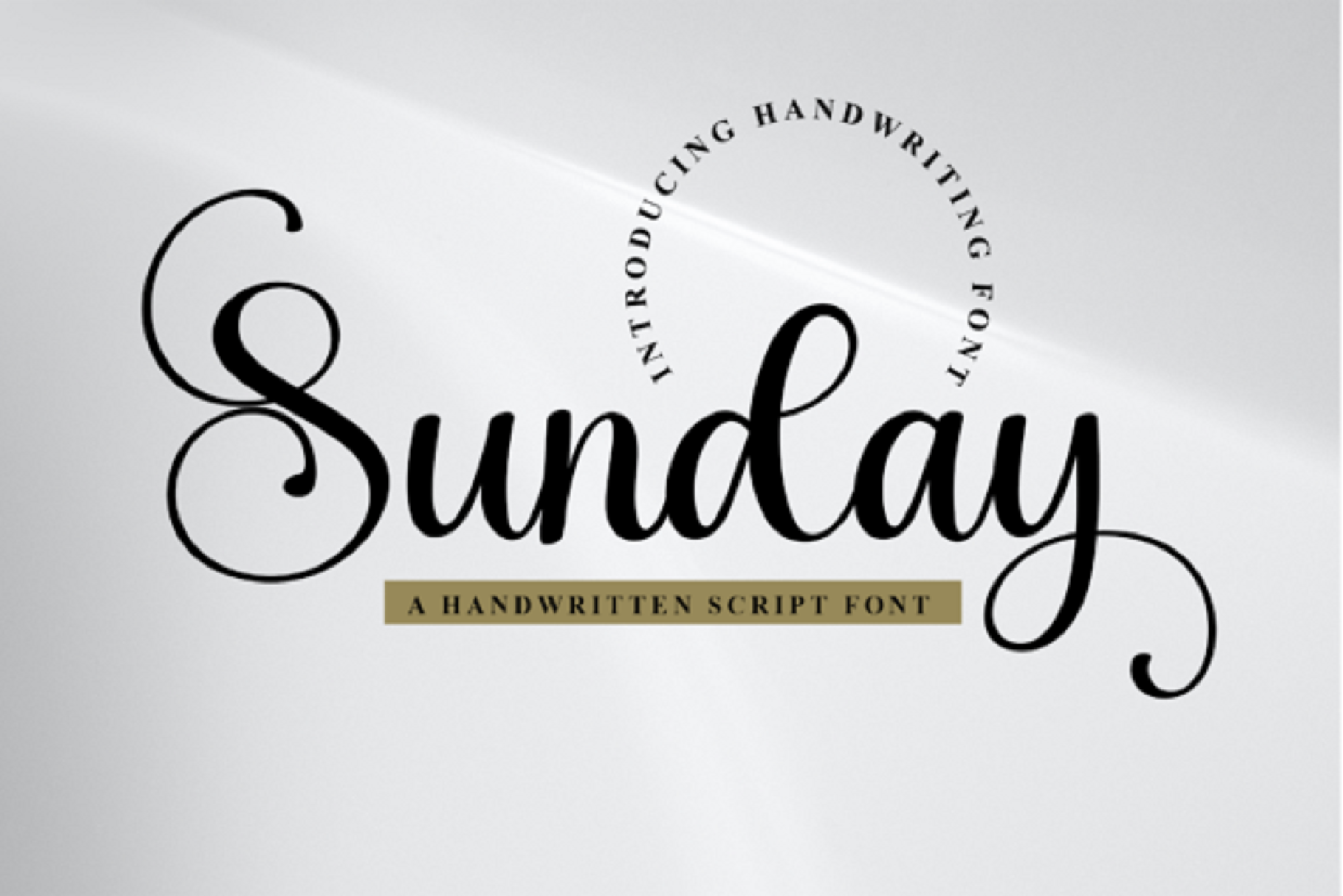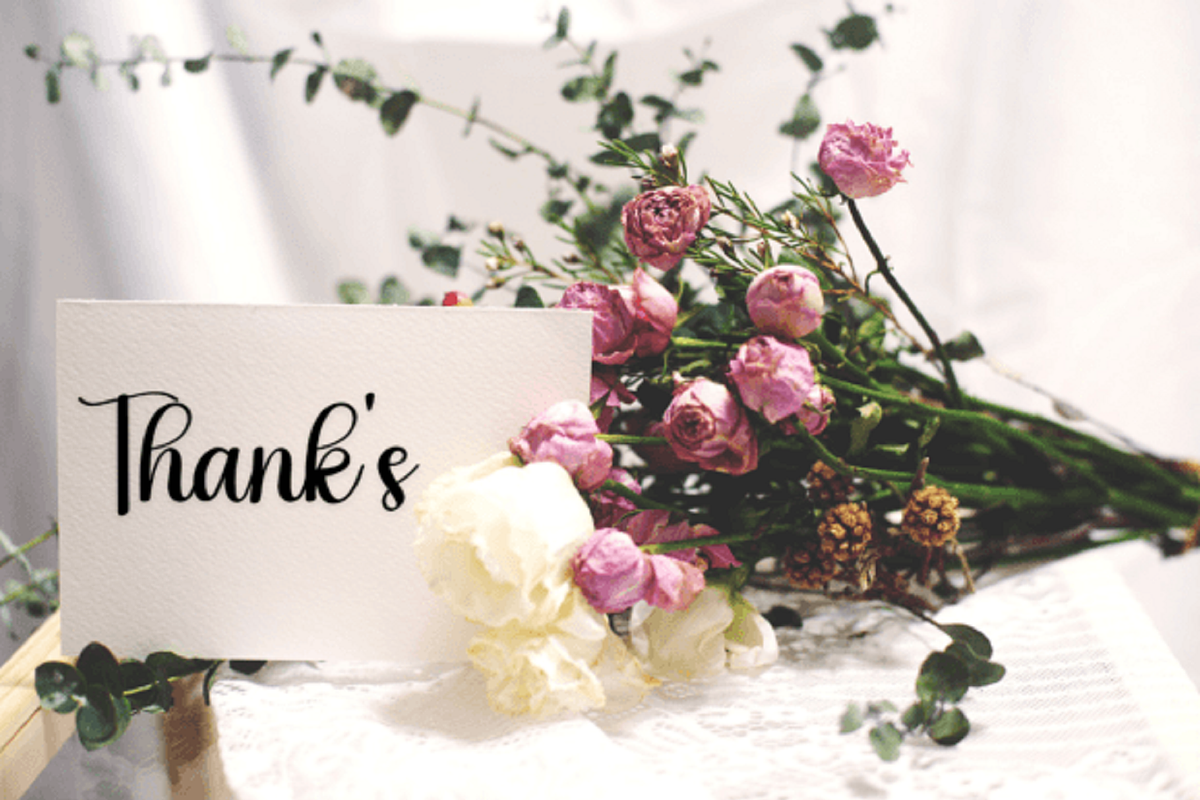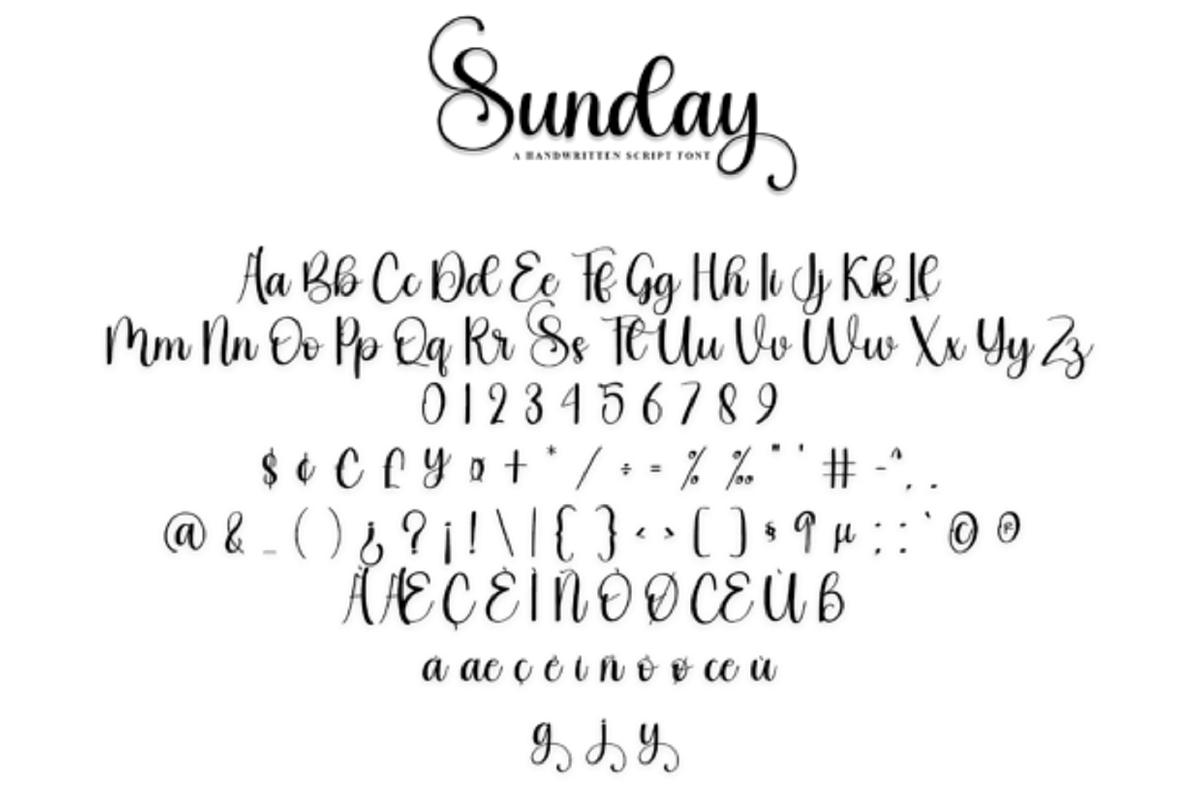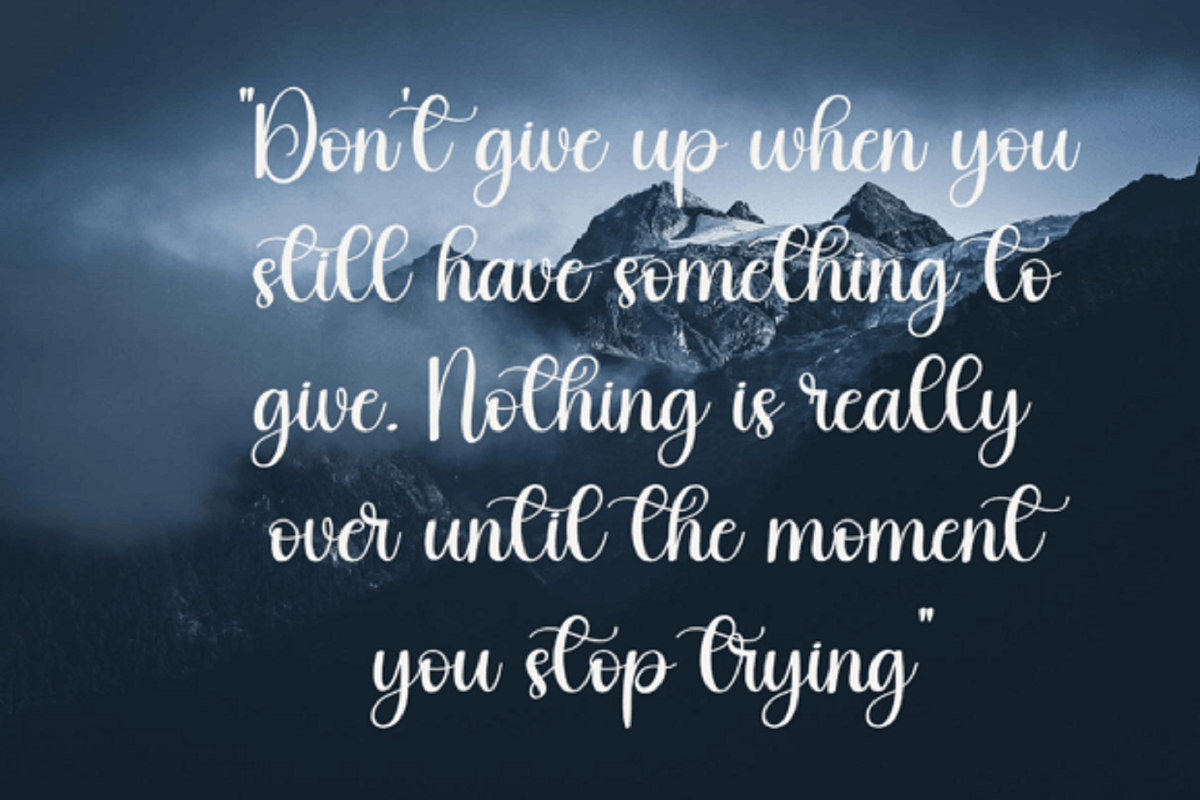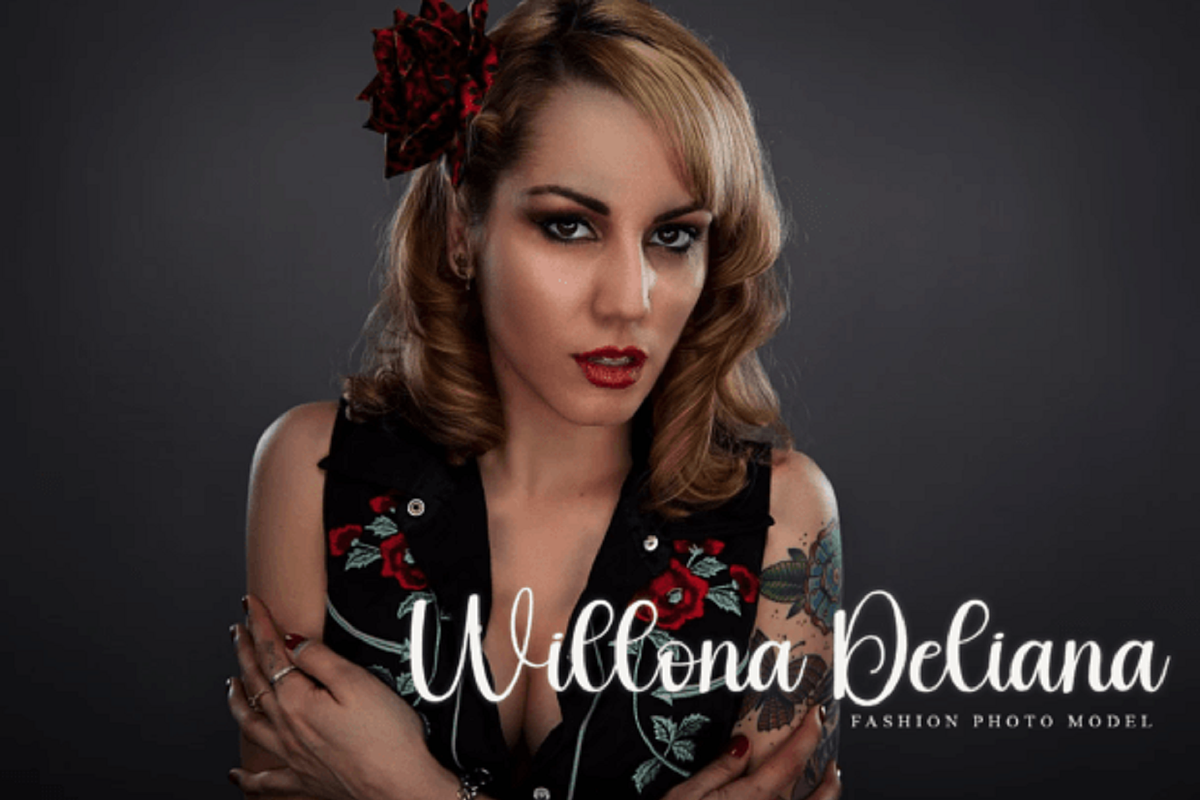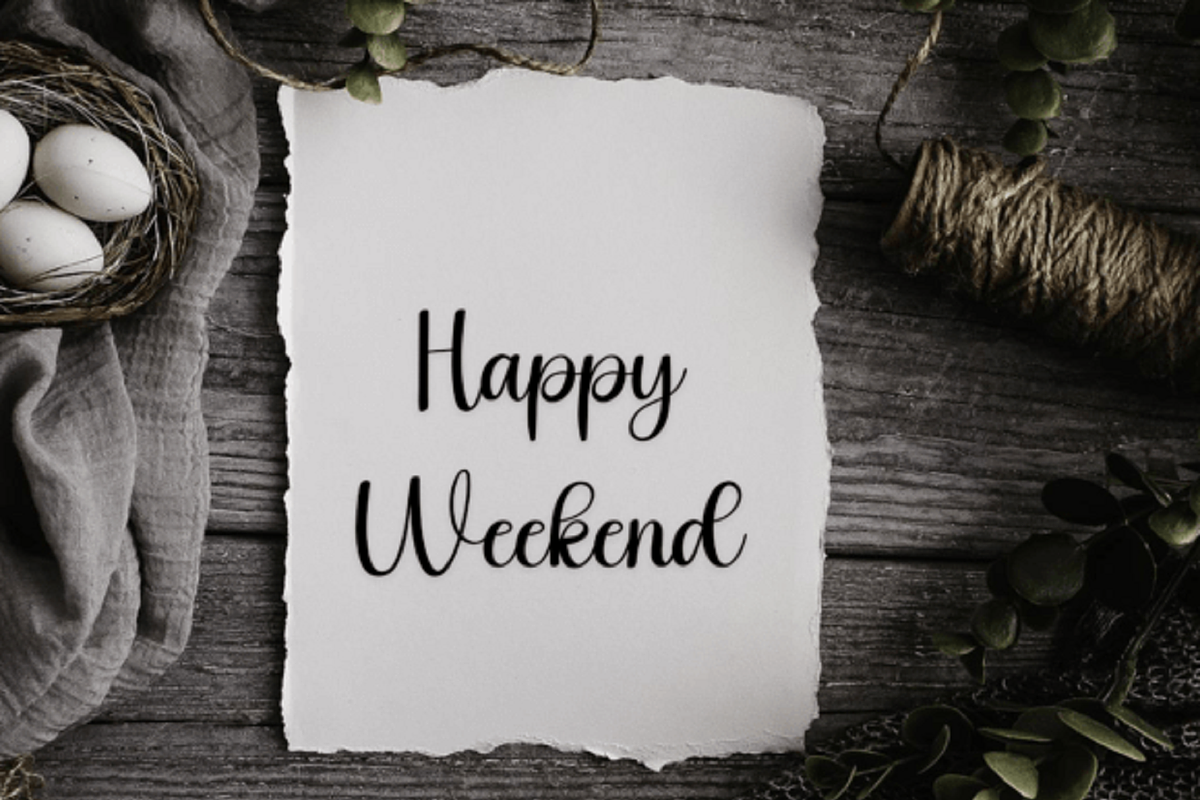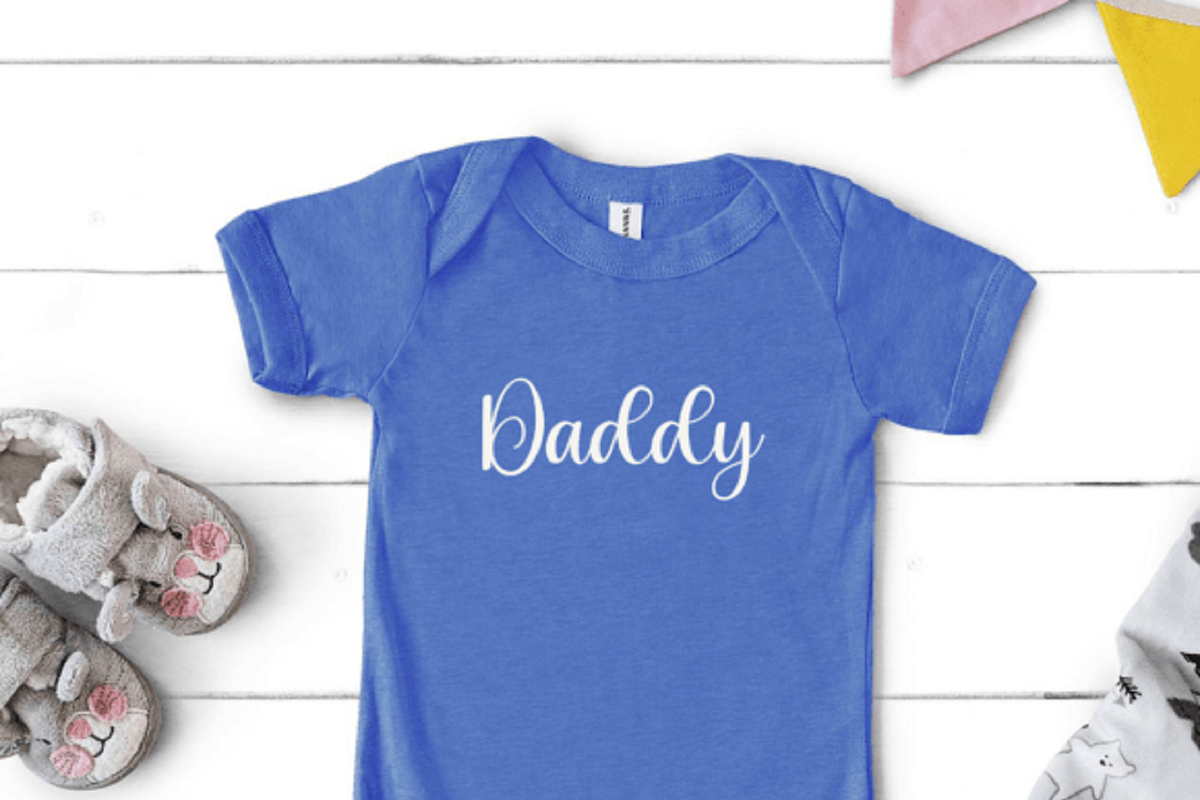
Sunday Font
Sunday it’s an elegant and feminine typeface suitable for all kinds of headlines. It will be a perfect choice for all kinds of wedding stationery, invitations, flower shops, packaging, and social media posts.